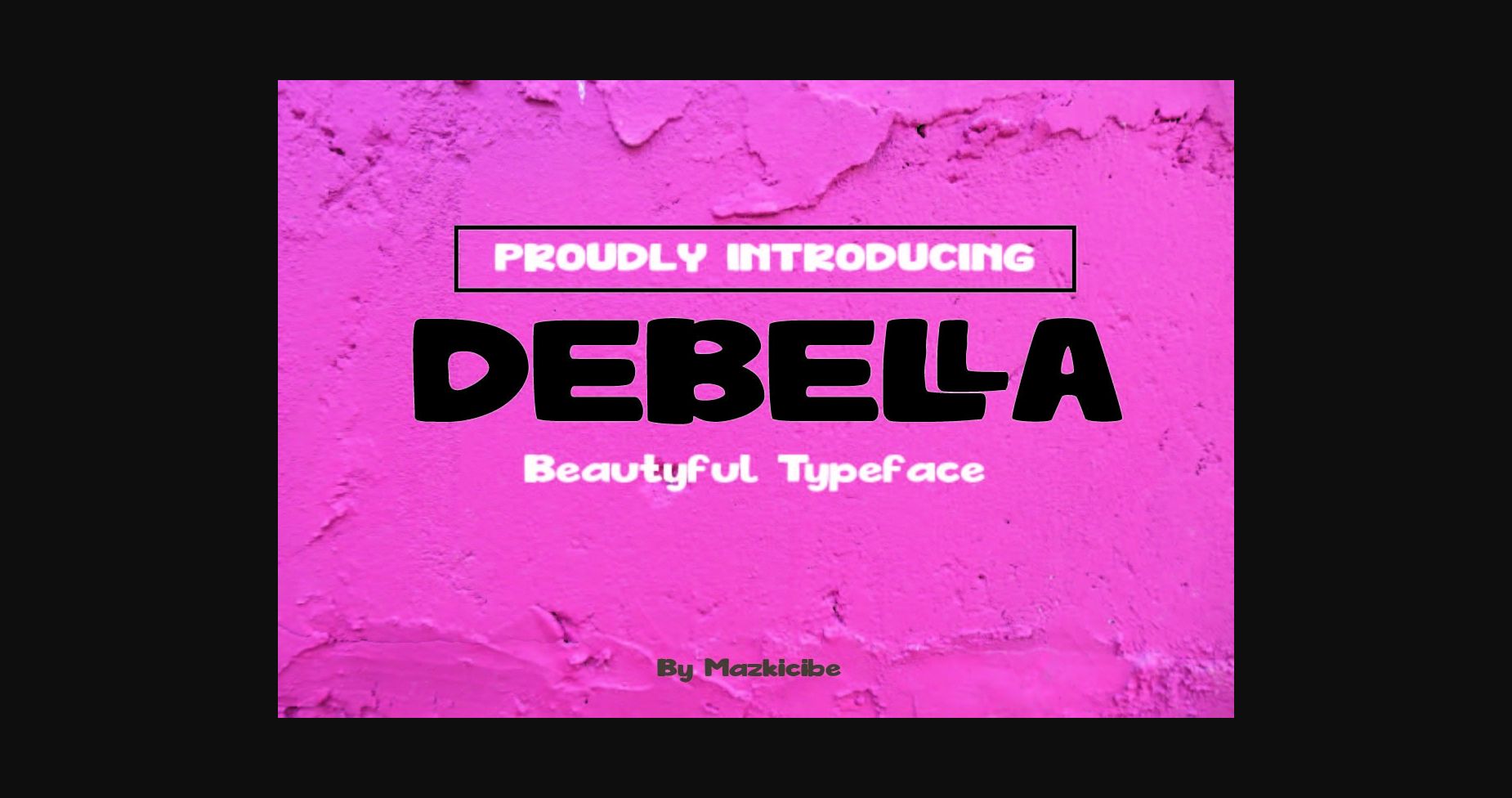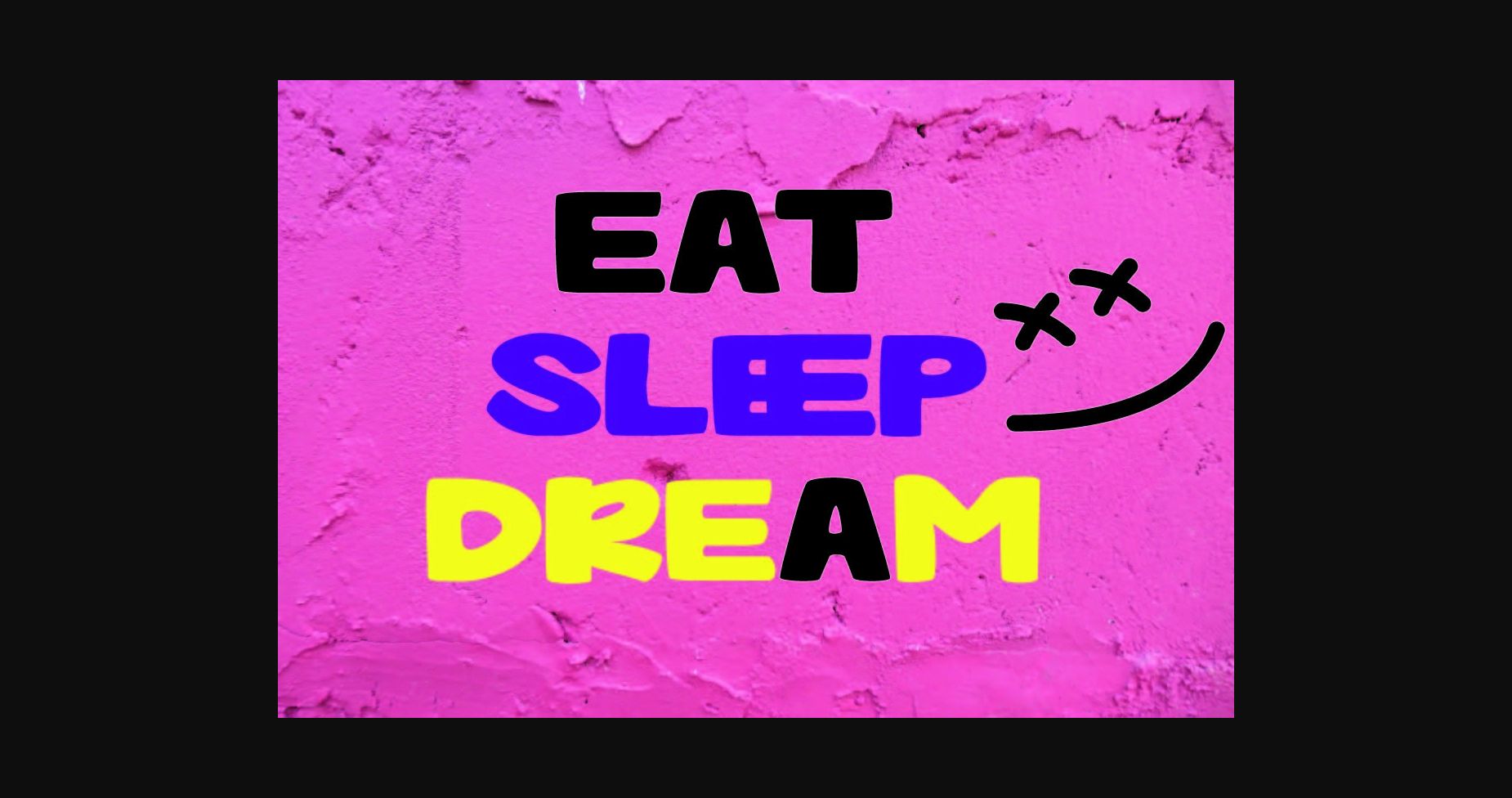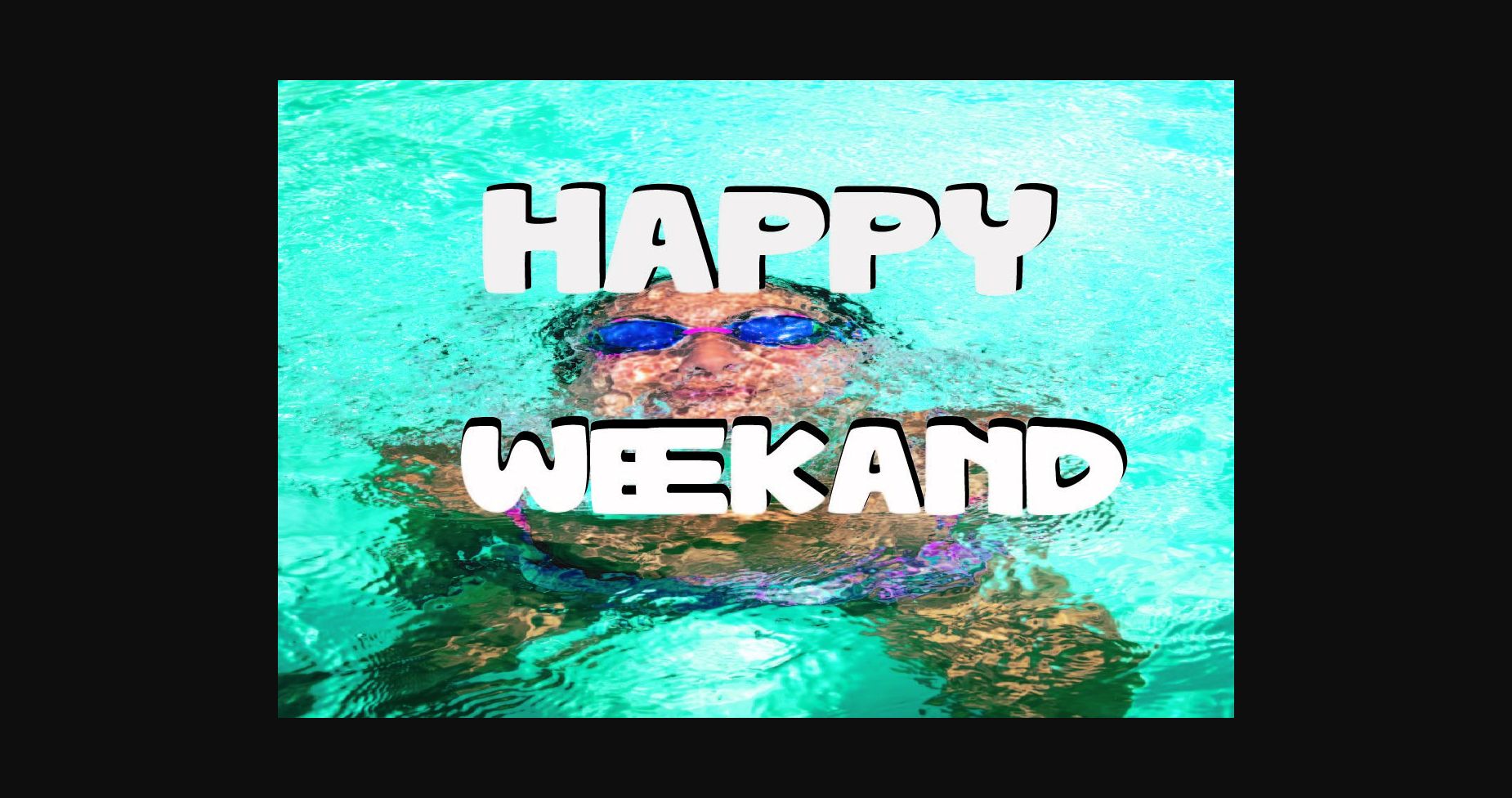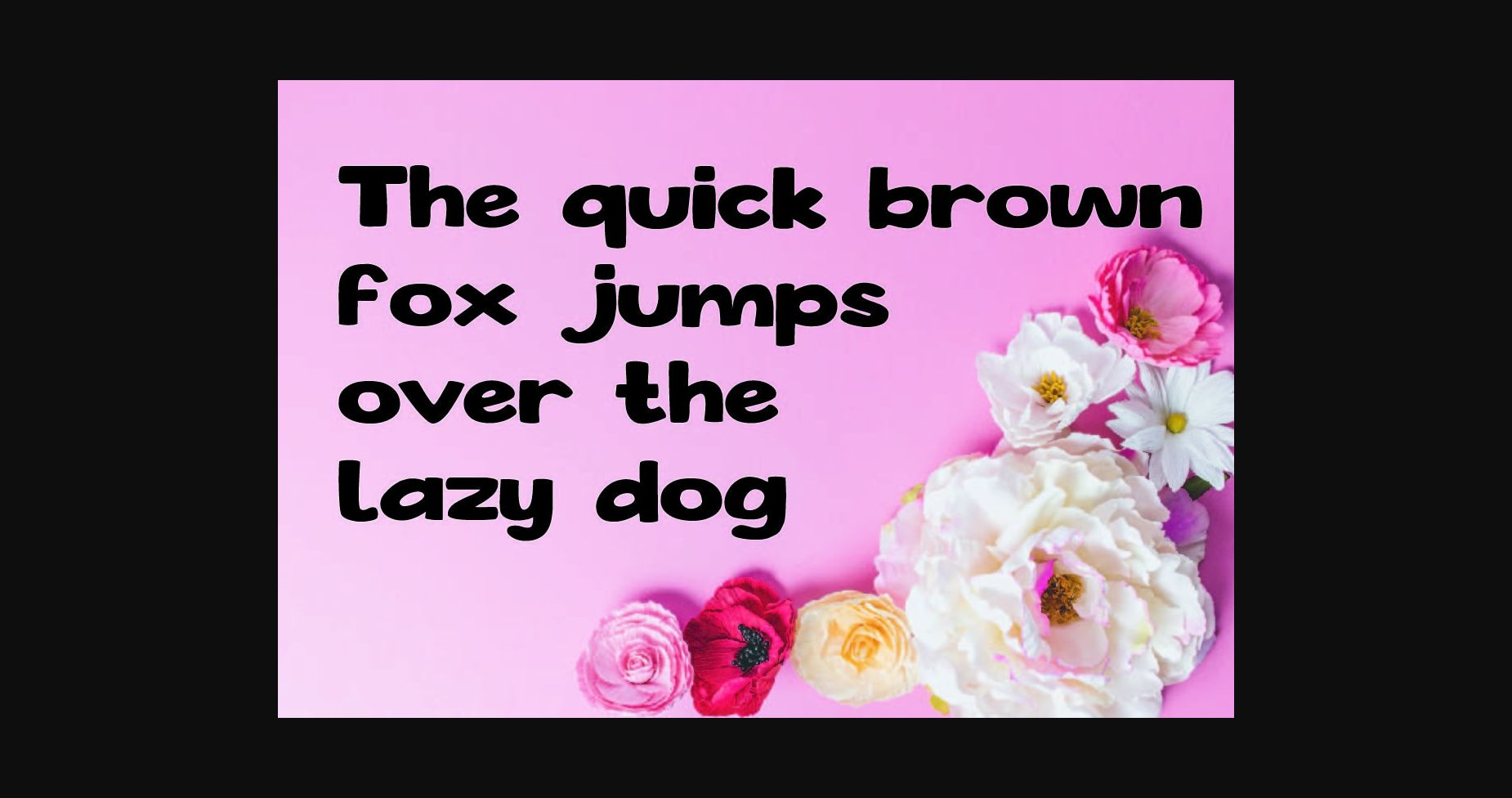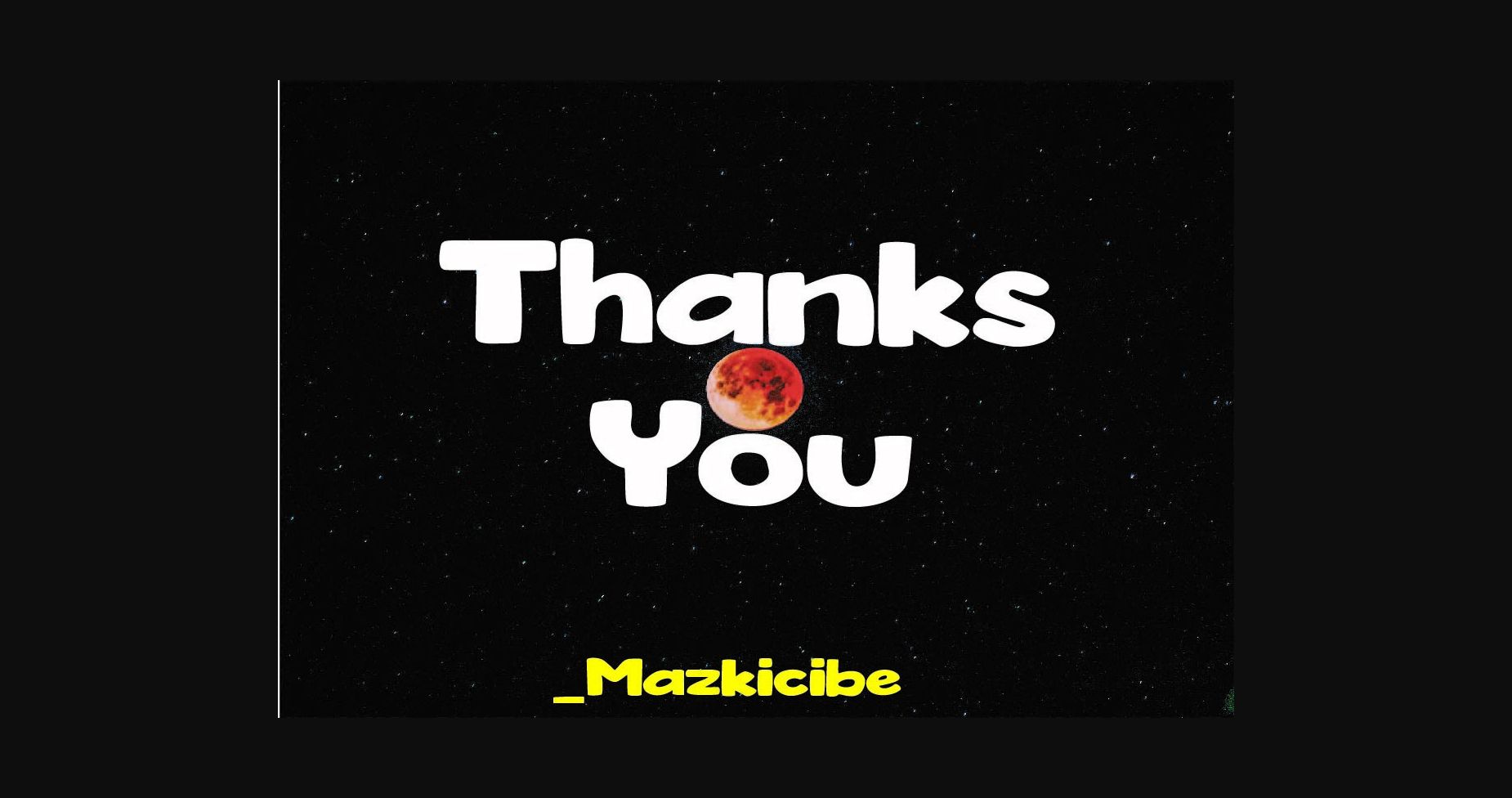
About Debella Font
Debella is a modern sans serif font featuring a sweet touch and beautifully curved letters. The splendid soft curves of this font make it even more pleasing to the eye.
Debella is great for wedding invitations, fashion magazines, logos, signatures, and it is suitable for watermark photography.